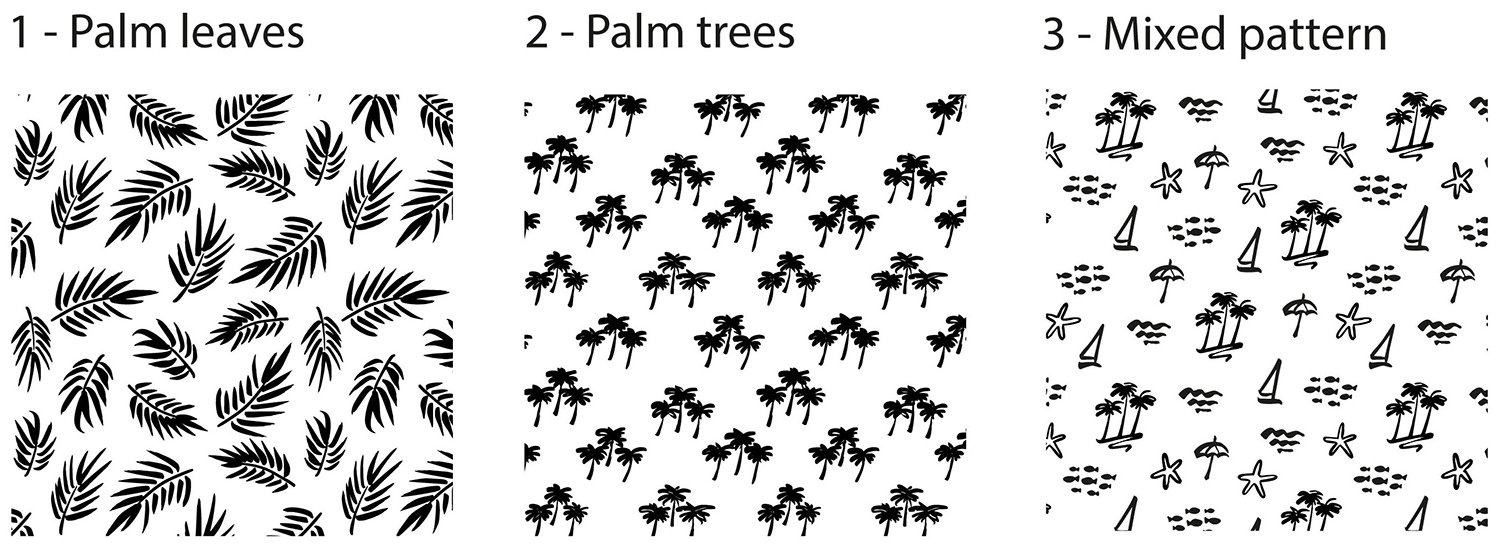
Identity Design for a Lifestyle Brand of Beach Accessories
A client reached out to collaborate on the East Broadway lifestyle brand project. Our goal was to capture a youthful, carefree beach vibe. Together, we crafted logos, surface patterns, and a vibrant color palette to bring this vision to life, creating a dynamic visual identity for the brand.
Client
East Broadway
Mood
Youthful, relaxed beach energy, fun, carefree, easygoing.
Goals
Design logos, define color palette, develop surface patterns.
Initial Logo Sketches
Following our discussions, I presented several logo concepts. Series 1a-d featured a handwritten logo paired with additional text indicating the founding year or a palm tree icon. Alternatively, the second option showcased a font-based logo with hand-written details. The third series explored the integration of palm tree illustrations with typeset text or the handwritten abbreviation EB.
Logo Refinement
After careful consideration, we selected the handwritten variation 1c as the optimal logo for the brand. I refined the design until it reached its final iteration. To ensure versatility across different platforms, I also developed a secondary logo featuring palm trees as a logo mark.
Pattern Design: Sketches
Moving on, we began working on two distinct patterns that could be applied to the brand's accessories. To maintain consistency with the East Broadway logo, we decided to incorporate the same sketch style of palm trees as a foundation for the pattern illustrations. This approach ensured that the patterns would seamlessly blend with the brand's overall aesthetic, delivering a cohesive visual identity for the products.
Pattern Design: Refinement
To streamline the discussion and focus on pattern elements, density, and movement direction, initial pattern samples were presented in black and white, avoiding color distractions.
Following discussions with the client, we finalized the first pattern, featuring leaves, while opting not to proceed with the second pattern showcasing palms. Additionally, adjustments were made to the third pattern based on client feedback to better align with their preferences.
Color Palette
Upon finalizing the patterns, three distinctive color schemes were presented to the client, with the first one being selected. This vibrant and youthful color palette is now featured on all East Broadway accessories.